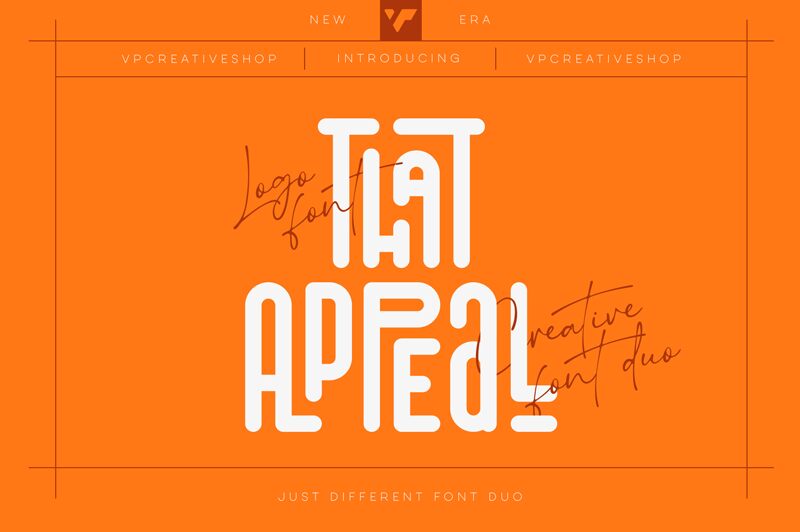
That Appeal font from VPcreativeshop is a free sans serif font with a modern aesthetic. The clean, minimalistic approach of this typeface provides a contemporary vibe that is both visually striking and unique. Seamlessly blending style with functionality, it adds a subtle futuristic essence to your design, with an overall distinctive look. This resource can be downloaded and customized using professional software.